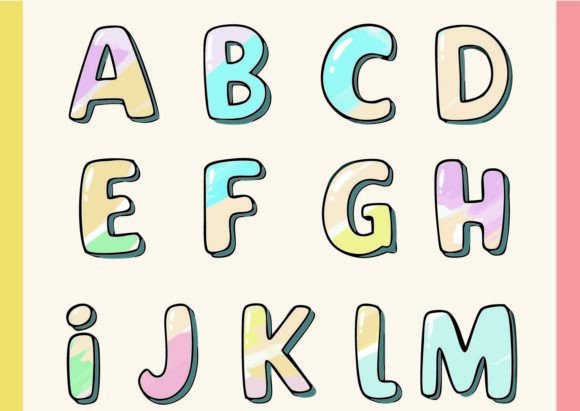
The Colorful World of Amelia Font: A Designer’s Dream Come True
I’ll never forget the time I was working on a branding project for a children’s play area. My client wanted a font that was playful, fun, and vibrant. I spent hours scouring the internet for the perfect font, but nothing seemed to fit the bill. That was until I stumbled upon Amelia Font. This stunning color font has been a game-changer for my design projects, and I’m excited to share my experience with you.
A Personal Review of Amelia Font
- ✨ Every single glyph has a different set of colors, making it a true masterpiece of typography.
- ✅ The complex sets of paths and connections in each glyph make it feel like a miniature painting.
While Amelia Font is a stunning addition to any design project, there are a few things to keep in mind:
The Inspiration Behind Amelia Font
Amelia Font was designed with the intention of pushing the boundaries of typography. The designer wanted to create a font that was not only beautiful but also complex and visually interesting. The result is a font that is truly unique and eye-catching.
Q: What is a color font?
A: A color font is a type of font that uses multiple colors to create a visually interesting effect. Color fonts are often used in designs where a bold, eye-catching look is desired.